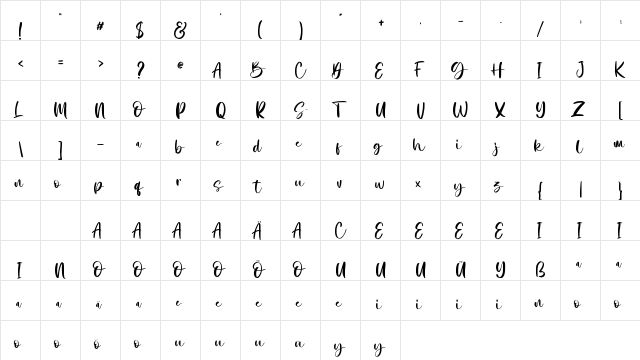
Natusha Bayor Regular
| Foundry | Creakokun Studio |
| Designer | M Arif Dwi Prasetyo & Eko Nurcahyo |
Design Context for Natusha Bayor Typeface
Natusha Bayor is a composed and adaptable typeface that performs quietly and consistently across a wide range of design contexts.